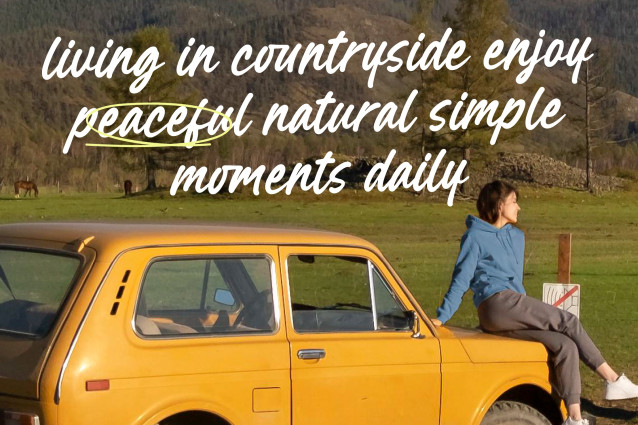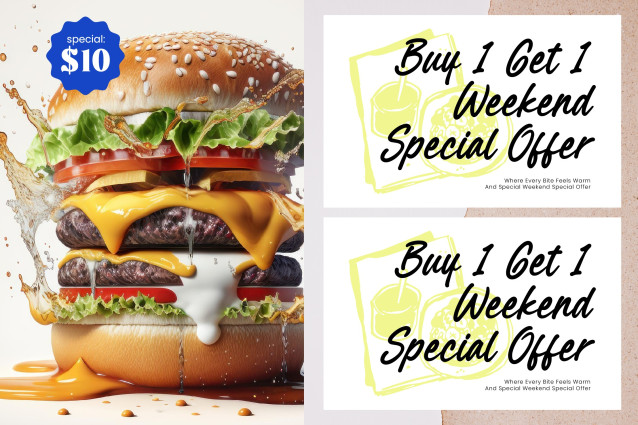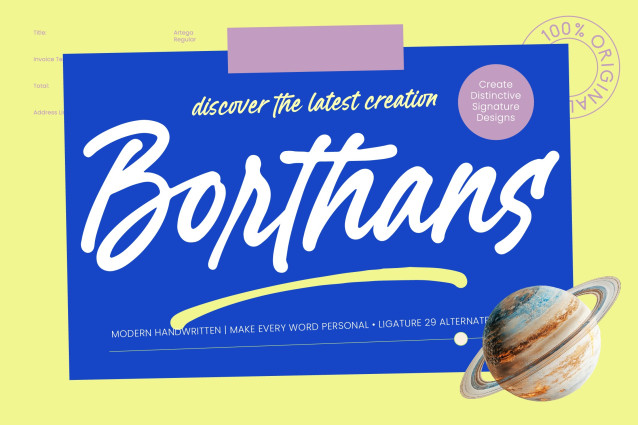
Borthans – Modern Handwritten Font
Elevate your creative vision with a typeface that embodies authenticity and flow. Borthans – Modern Handwritten Font captures the essence of human touch through its fluid strokes and organic rhythm. This dynamic script offers a perfect balance between contemporary elegance and casual sophistication, making it an essential tool for designers seeking to add a personalized feel to their digital and print projects.
Expand your global reach with a design-forward solution that transcends language barriers. With its extensive multilingual support, Borthans – Modern Handwritten Font adapts seamlessly across global markets, making it incredibly versatile for international projects. The inclusion of sophisticated ligatures and stylistic alternates ensures that every character pairing feels custom-made, providing a bespoke aesthetic that resonates with diverse audiences worldwide.
Unlock the full potential of your brand identity through high-impact visual storytelling. Borthans – Modern Handwritten Font is the perfect choice for luxury branding, custom logos, and premium packaging where a unique signature look is required. Its bold presence and artistic flair make it an ideal candidate for editorial layouts, wedding stationery, and social media graphics, ensuring your message stands out with distinctive clarity and style.